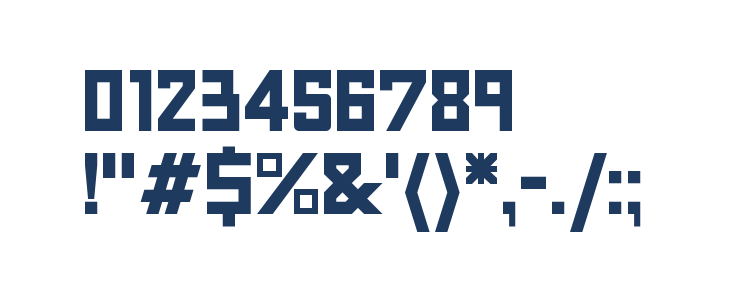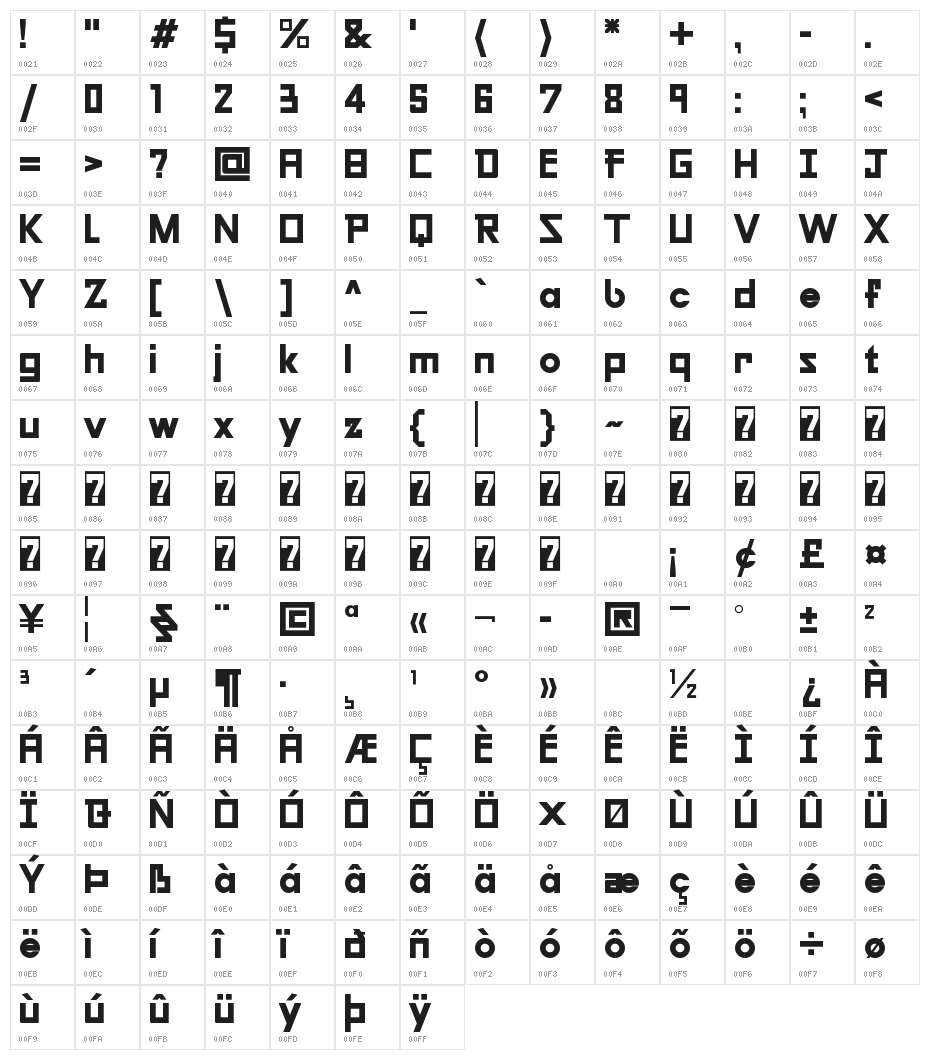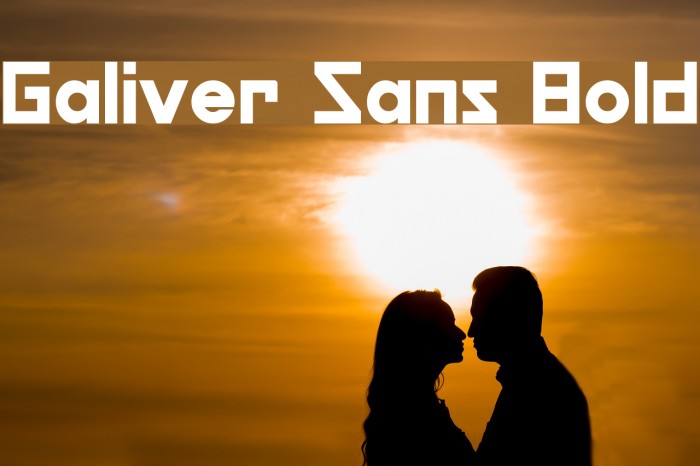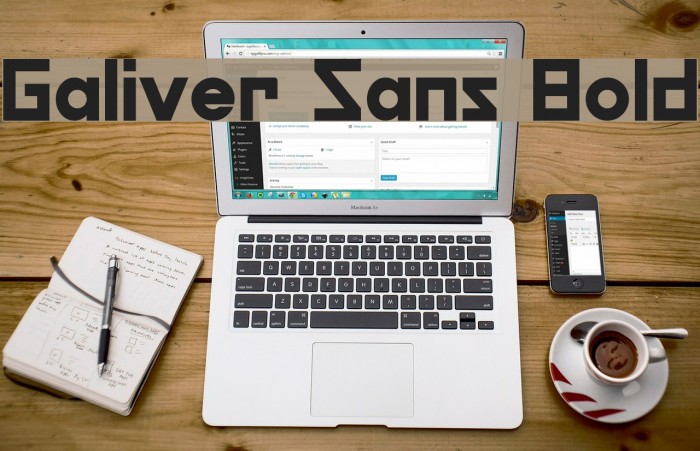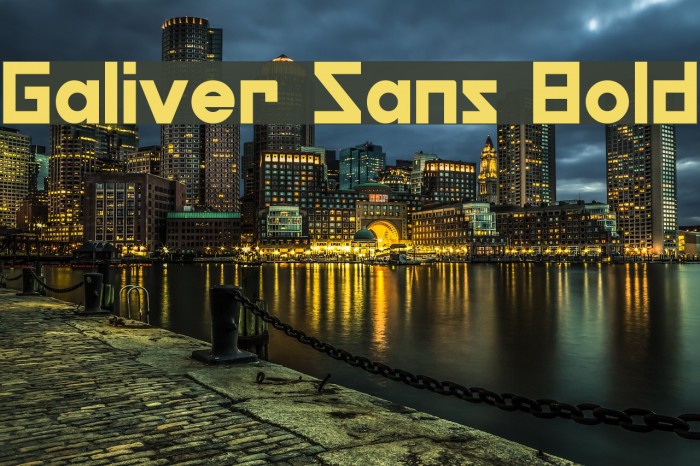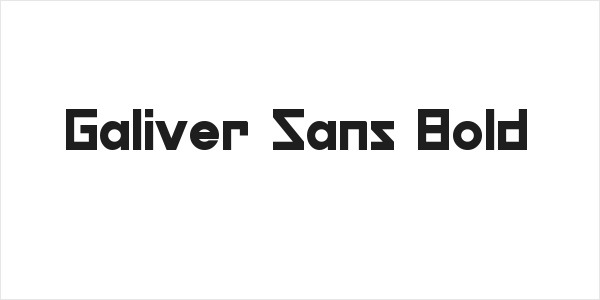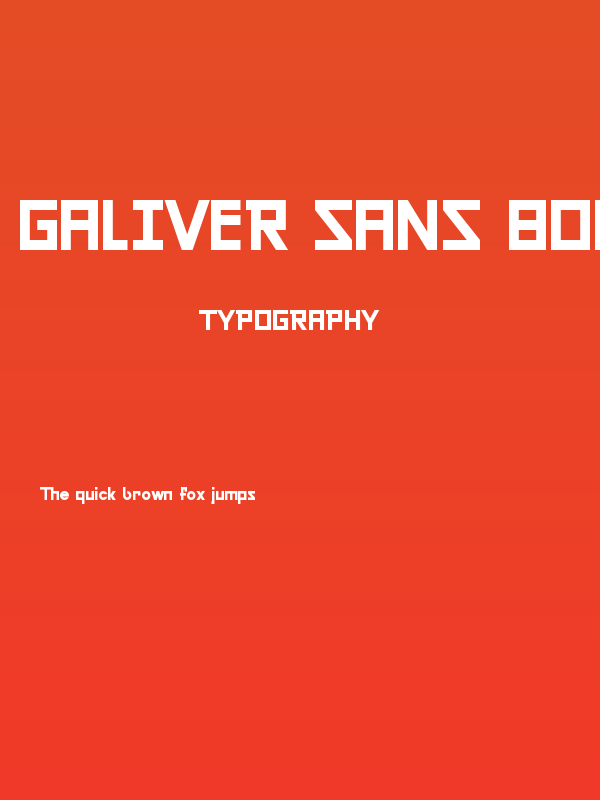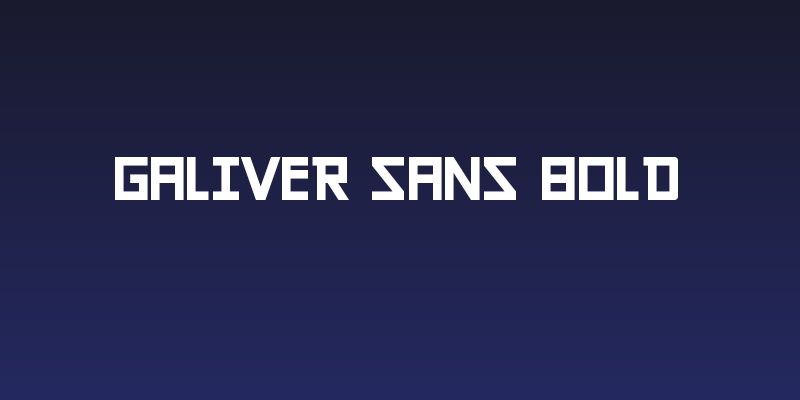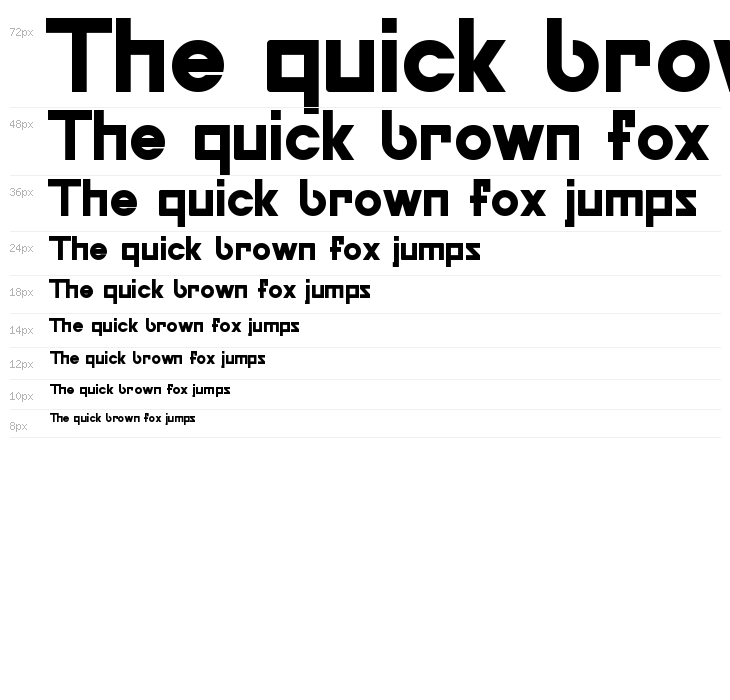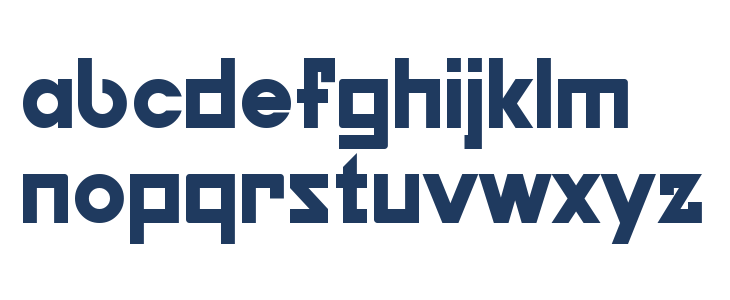
Galiver Sans Bold Font
Galiver Sans Bold Description
This font features a bold and geometric design with a modern and futuristic appeal. The characters are constructed with strong, straight lines and sharp angles, giving it a distinct and assertive presence. The uppercase letters are particularly striking, with a blocky and robust appearance, while the lowercase letters maintain a consistent style with slightly softer edges. The numerals and special characters follow the same bold and angular design, ensuring uniformity across all glyphs. This font's unique style makes it ideal for projects that require a strong visual impact.